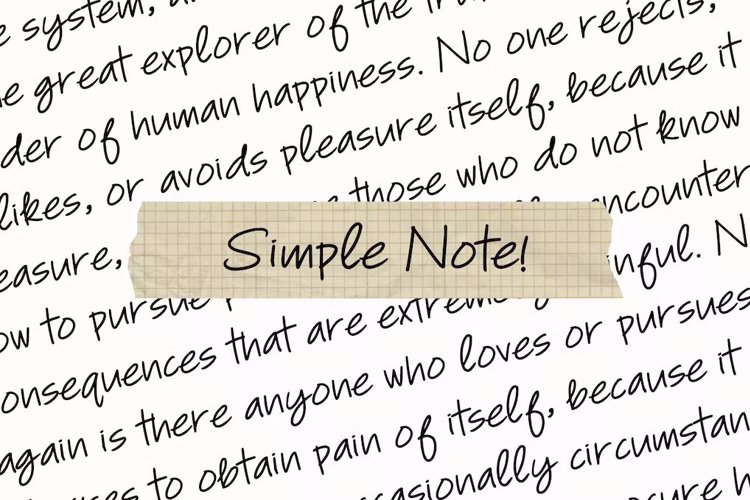
Simple Note Font
About Simple Note Font
Simple Note is a casual handwriting font with natural stroke. This font will be perfect for notes, product description, headline, product paragraph, logos, branding and many more.